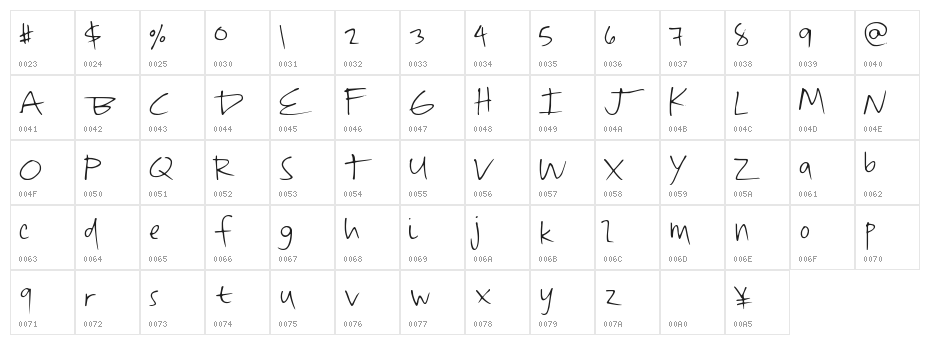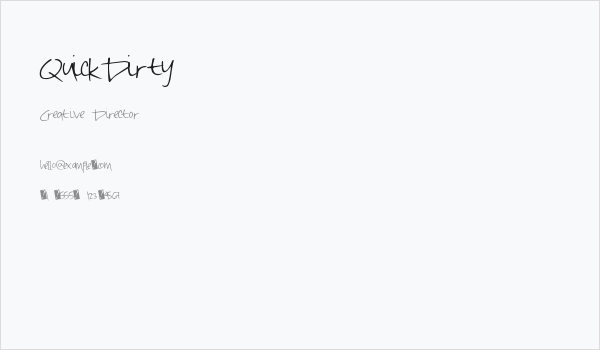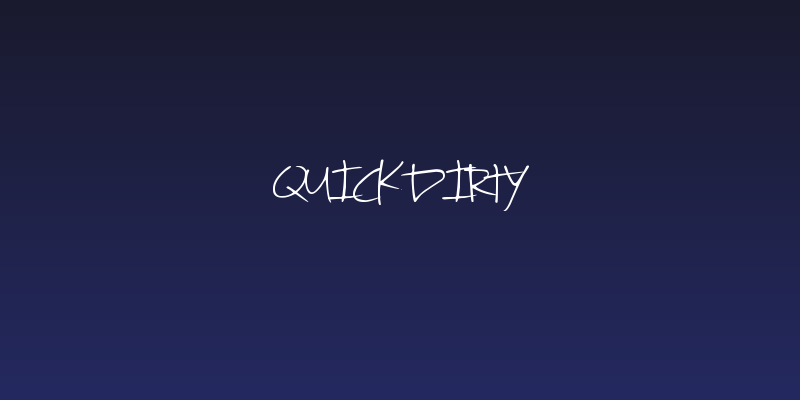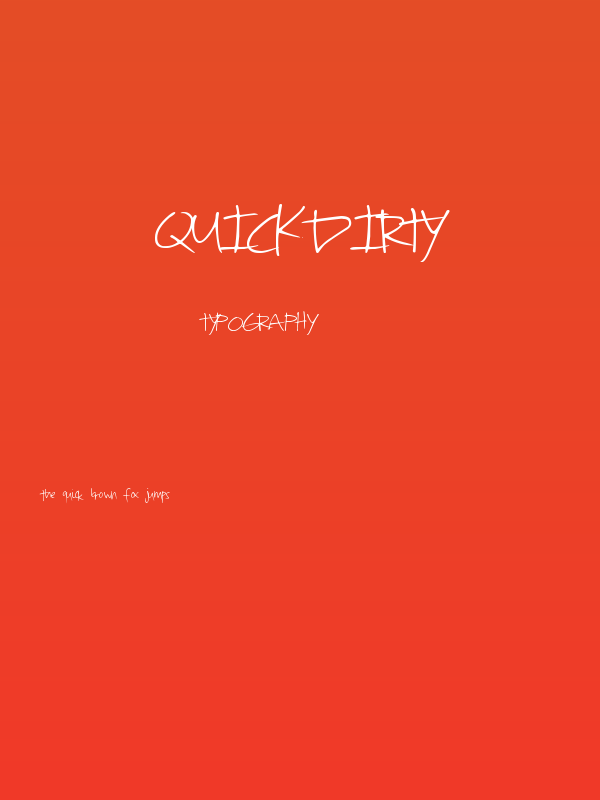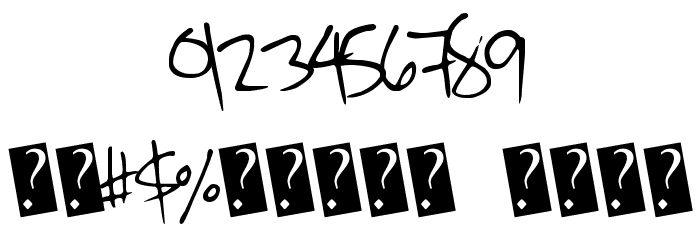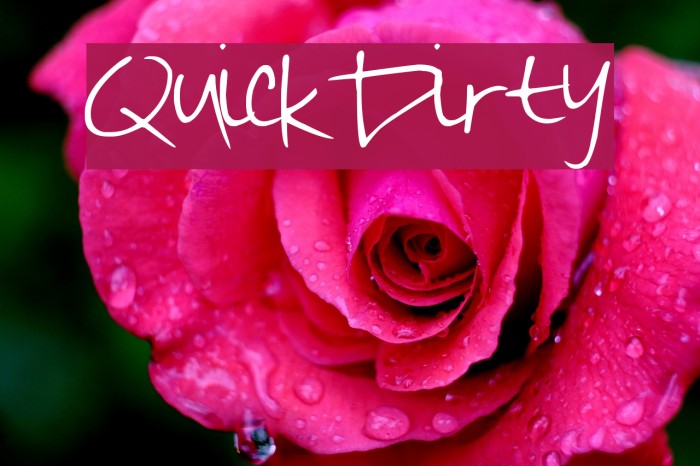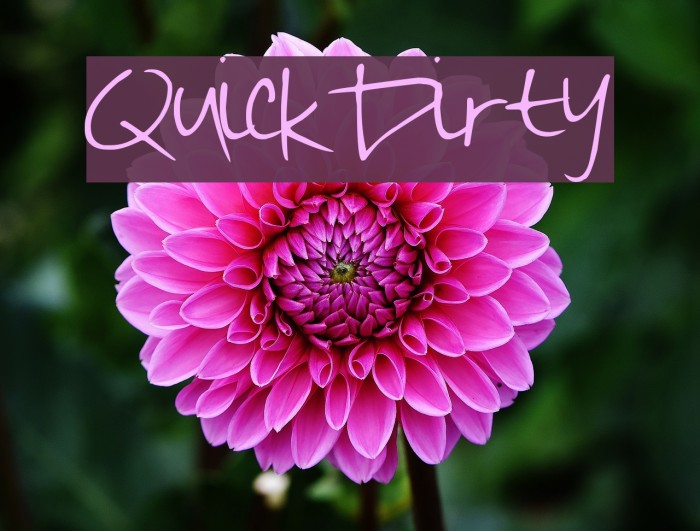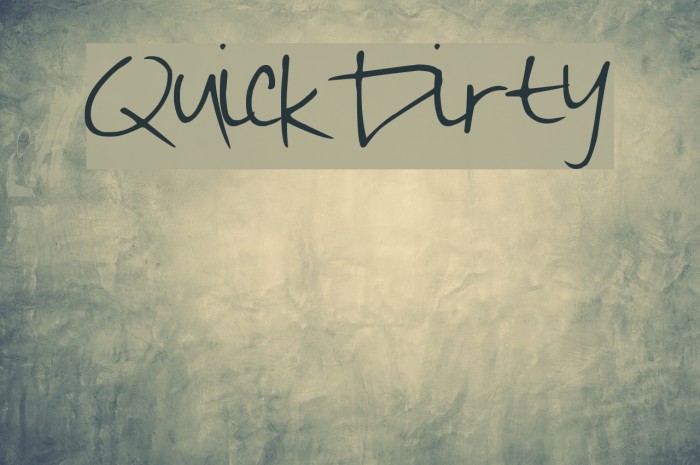
QuickDirty Font
QuickDirty Description
This font features a dynamic and energetic handwritten style, characterized by its irregular strokes and playful appearance. The letters are slightly slanted, giving a sense of motion and spontaneity. The uppercase and lowercase letters maintain a consistent flow, with some letters extending slightly above or below the baseline, adding to its casual charm. The numbers are equally expressive, matching the lively style of the alphabet. Special characters are included, though some appear with unique, creative interpretations. Overall, this font exudes a sense of informality and creativity, making it suitable for projects that require a personal touch.
| Overall Style | Casual, Creative |
| Proposed Projects | Ideal for greeting cards, personal branding, creative posters, and informal invitations. |